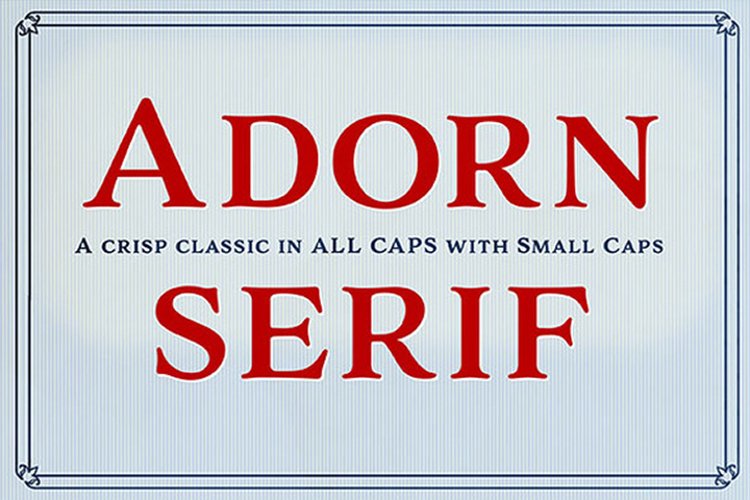
Adorn Serif breaks free from the slick and polished typical serif typefaces. Leaning toward a handmade authenticity, the letterforms were originally drawn by hand, and accentuates their irregularities and organic look in their design style.